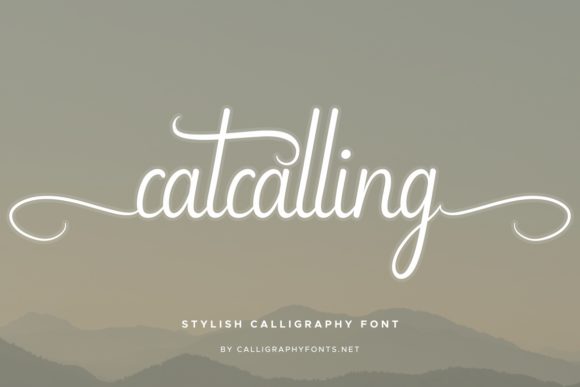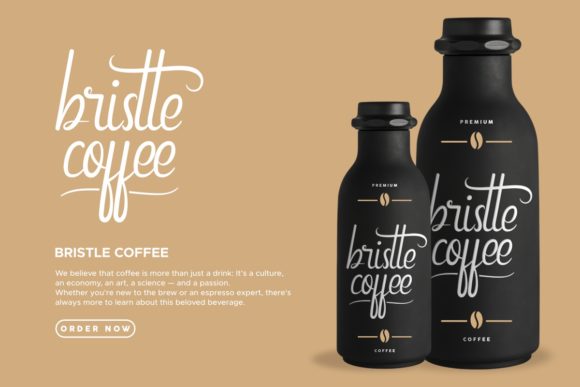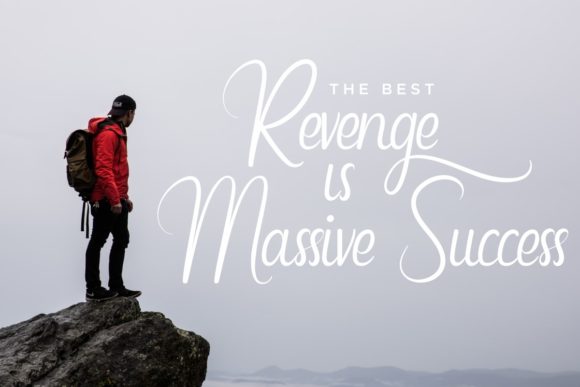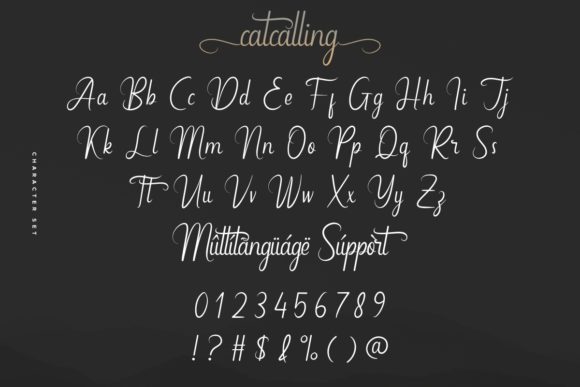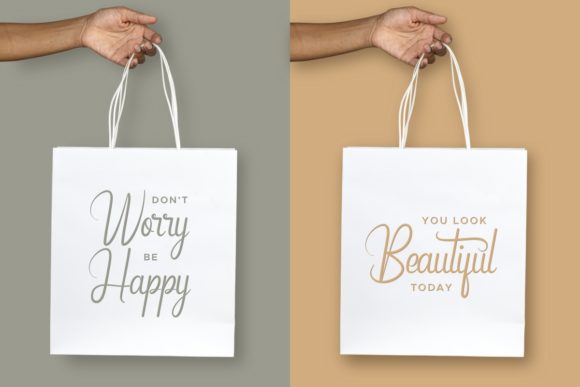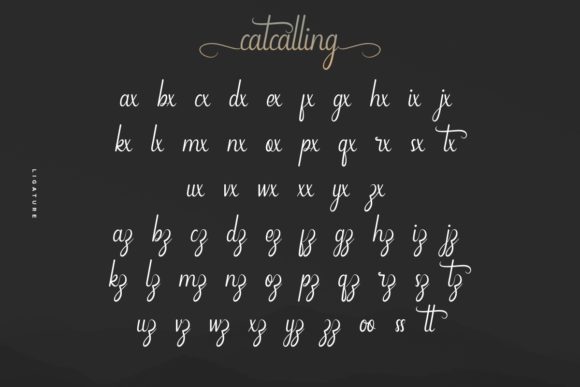
Introducing Catcalling Font: Elevate Your Designs with Elegance and Flair
Are you a designer or crafter looking for a font that can add a touch of sophistication and whimsy to your creative projects? Look no further than Catcalling Font, a delicate, elegant, and flowing handwritten font that’s sure to make your designs come alive.
The Beauty of Catcalling Font
Catcalling Font is a stunning example of handwritten typography, with beautiful and well-balanced characters that exude elegance and refinement. The font’s flowing lines and curves create a sense of movement and fluidity, making it perfect for designs that require a touch of whimsy and personality.
One of the standout features of Catcalling Font is its versatility. Its classic and timeless design makes it suitable for a wide range of projects, from wedding invitations and party decorations to branding and advertising materials. Whether you’re creating a romantic and feminine design or a bold and statement-making one, Catcalling Font is sure to match your vision perfectly.
What Makes Catcalling Font So Special?
So, what sets Catcalling Font apart from other fonts on the market? Here are just a few reasons why designers and crafters are falling in love with this beautiful font:
- Delicate and elegant design: Catcalling Font features a delicate and elegant design that’s perfect for creating sophisticated and refined designs.
- Flowing lines and curves: The font’s flowing lines and curves create a sense of movement and fluidity, making it perfect for designs that require a touch of whimsy and personality.
- Well-balanced characters: Each character in Catcalling Font is carefully crafted to ensure that they’re well-balanced and visually appealing.
- Versatile and adaptable: Catcalling Font can be used for a wide range of projects, from wedding invitations and party decorations to branding and advertising materials.
How to Use Catcalling Font in Your Designs
Catcalling Font is incredibly easy to use, even for designers and crafters who are new to working with fonts. Here are a few tips for incorporating Catcalling Font into your designs:
- Pair it with bold fonts: Catcalling Font pairs beautifully with bold and statement-making fonts, creating a striking contrast that’s sure to grab attention.
- Use it for headings and titles: The font’s elegant and refined design makes it perfect for headings and titles, adding a touch of sophistication and whimsy to your designs.
- Add it to your branding materials: Catcalling Font can be used to create stunning branding materials, from business cards and brochures to social media graphics and website headers.
Why Designers and Crafters Love Catcalling Font
Catcalling Font has quickly become a favorite among designers and crafters, and it’s easy to see why. Here are just a few reasons why this font has captured the hearts of creatives:
- Unique and eye-catching design: Catcalling Font features a unique and eye-catching design that’s sure to make your designs stand out from the crowd.
- Elegant and refined: The font’s elegant and refined design makes it perfect for creating sophisticated and high-end designs.
- Easy to use and versatile: Catcalling Font is incredibly easy to use and can be adapted to suit a wide range of design styles and projects.
In conclusion, Catcalling Font is a beautiful and elegant handwritten font that’s perfect for designers and crafters looking to add a touch of sophistication and whimsy to their creative projects. With its delicate and flowing design, well-balanced characters, and versatility, Catcalling Font is sure to become a staple in your design toolkit. So why wait? Download Catcalling Font today and start creating stunning designs that will leave a lasting impression!